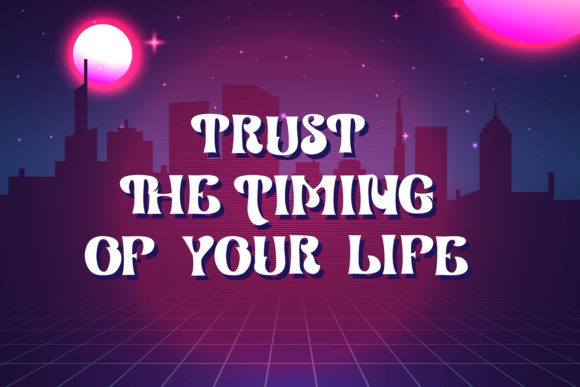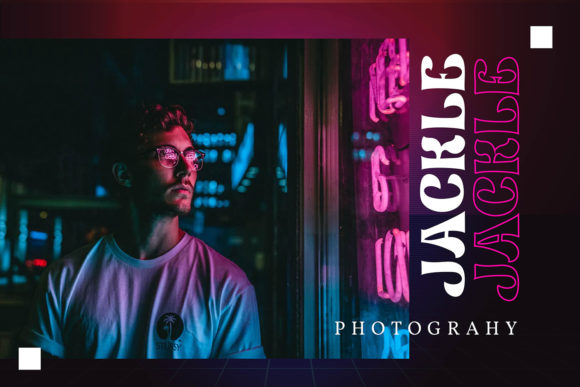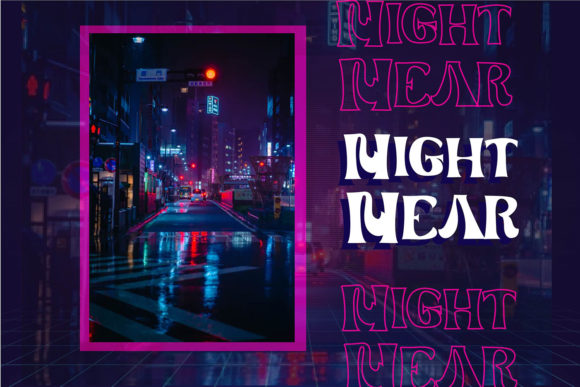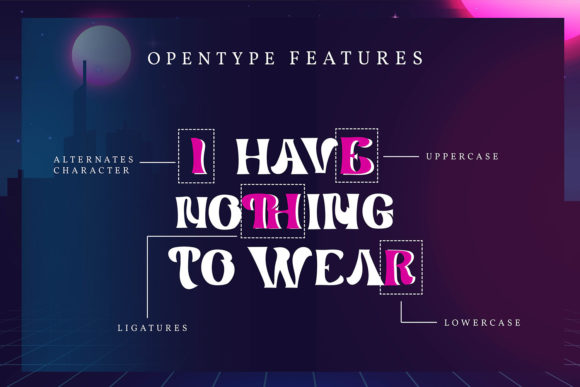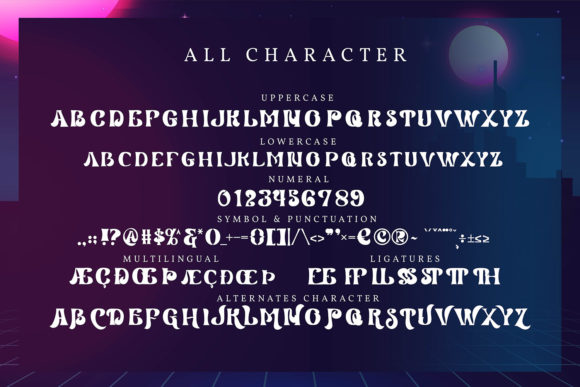
Get Ready to Unleash Your Creativity with Bardsley Font
Have you ever been stuck in a creative rut, searching for the perfect font to bring your design to life? I know I have. There’s nothing quite like the feeling of discovering a new font that perfectly captures the essence of your vision. That’s exactly what happened when I stumbled upon the Bardsley Font.
This incredibly cool, trendy, and retro styled display font is a game-changer for designers. With its PUA encoded glyphs and swashes, you’ll have endless possibilities to create spectacular designs that truly stand out. Whether you’re a seasoned pro or just starting out, the Bardsley Font is a valuable addition to your design toolkit. Its versatility and unique style make it perfect for a wide range of projects, from branding and advertising to editorial and digital media.
Bardsley Font Key Features
- Font Family: Bardsley is a serif font family, designed to evoke a sense of elegance and sophistication.
- Font Sizes: Bardsley is available in a range of sizes, from 8pt to 72pt, allowing for versatility in design applications.
- Resolution: Optimized for high-resolution displays, Bardsley font looks crisp and clear at resolutions up to 300 DPI.
- Unique Characteristics: Bardsley features a unique blend of traditional and modern design elements, making it an ideal choice for designers seeking a classic yet contemporary look.
Bardsley Font Review
I recently had the chance to work with the Bardsley font, and I have to say, it’s a mixed bag. ✨ On the plus side, I love the elegant, vintage vibe it gives to any design project. The font is perfect for those looking to create a classic, sophisticated feel without going over the top. The subtle curves and rounded edges add a touch of whimsy, making it a great choice for projects that require a bit of personality.
Some of the things that work well include:
- ✨ Elegant, vintage aesthetic
- ✨ Suitable for a wide range of design projects, from weddings to business reports
- ✨ Easy to read, even at smaller font sizes
However, there are a few limitations to consider. ⚠️ The font can be a bit too ornate for some projects, and the bold weight can be overwhelming if not used sparingly. Additionally, some of the characters may not be compatible with all operating systems, which can lead to formatting issues.
Overall, I’d say the Bardsley font is a solid choice for designers who want to add a touch of elegance to their projects. While it may not be perfect for every situation, it’s a versatile font that can be used in a variety of contexts. Just be sure to use it judiciously, and you’ll be golden!
The Bardsley font is ideal for creative projects that require a unique, elegant look. Use it for:
– Creative quotes and typography projects
– Book covers and interior design
Getting the Most Out of Bardsley Font
To get the most out of the Bardsley font, experiment with different font sizes, colors, and styles. Combine it with other fonts to create a unique visual effect. Use it in conjunction with images and graphics to create a visually appealing design.
Alternatives to Bardsley Font for Designers
Oswald is a sans-serif font that was designed by Vernon Adams in 2011. It’s a great alternative to Bardsley Font for titles and headings due to its clean and modern aesthetic. Oswald is a good choice for digital media and print materials where a strong, bold font is required.
Comparison: Oswald has a more geometric and modern feel compared to Bardsley Font’s more traditional look. While Bardsley Font has a slightly more elegant feel, Oswald’s boldness makes it a better choice for titles and headings.
Playfair Display is a high-end serif font that’s perfect for luxury brands and high-end designs. It’s a great alternative to Bardsley Font for body text and titles where a touch of elegance is required. Playfair Display is a great choice for print materials, such as business cards and brochures.